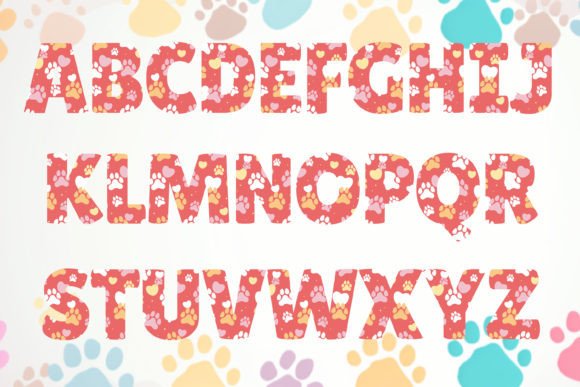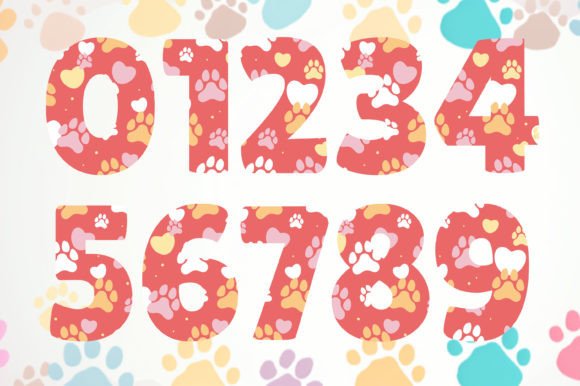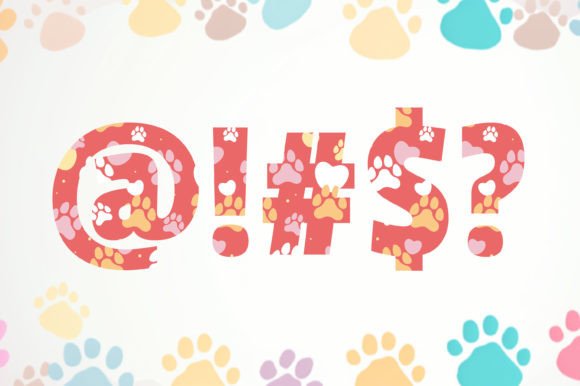
Cute Paw Font: Add a Playful Touch to Your Creative Projects
Are you looking for a font that can add a playful or artistic feel to your creative projects? Look no further than Cute Paw Font! This cool color font is designed to bring a fun and whimsical touch to your designs, making it perfect for crafters, designers, and anyone looking to add some personality to their work.
What is Cute Paw Font?
Cute Paw Font is a unique and creative font that features a colorful and playful design. The font is carefully crafted to convey a sense of fun and artistic expression, making it ideal for use in a variety of creative projects. Whether you’re working on a graphic design project, crafting a handmade card, or creating digital content, Cute Paw Font is sure to add a touch of personality and whimsy to your work.
Key Features of Cute Paw Font
- Colorful Design: Cute Paw Font features a colorful design that adds a playful touch to your creative projects.
- Playful Feel: The font is designed to convey a playful or artistic feel, making it perfect for use in creative projects.
- Versatile: The font can be used in a variety of creative projects, from graphic design to crafting.
Benefits of Using Cute Paw Font
There are many benefits to using Cute Paw Font in your creative projects. Some of the benefits include:
- Adds Personality: Cute Paw Font adds a touch of personality and whimsy to your creative projects.
- Enhances Creativity: The font’s playful design can help to enhance your creativity and inspire new ideas.
- Perfect for Kids’ Projects: Cute Paw Font is perfect for use in kids’ projects, such as children’s party invitations, coloring pages, and more.
- Great for Social Media: The font’s colorful design makes it perfect for use in social media graphics, such as Facebook posts, Instagram stories, and more.
Tips for Using Cute Paw Font
Here are some tips for using Cute Paw Font:
- Use it for Headings: Cute Paw Font is perfect for use in headings and titles.
- Experiment with Colors: Experiment with different colors to find the perfect combination for your project.
- Pair it with Other Fonts: Pair Cute Paw Font with other fonts to create a unique and interesting design.
Cute Paw Font is a cool color font that aims to convey a playful or artistic feel. With its colorful design and easy-to-use format, it’s perfect for adding a touch of personality to your creative projects. Whether you’re a designer, crafter, or just looking for a fun font to use, Cute Paw Font is sure to delight. So why not give it a try and see the results for yourself?